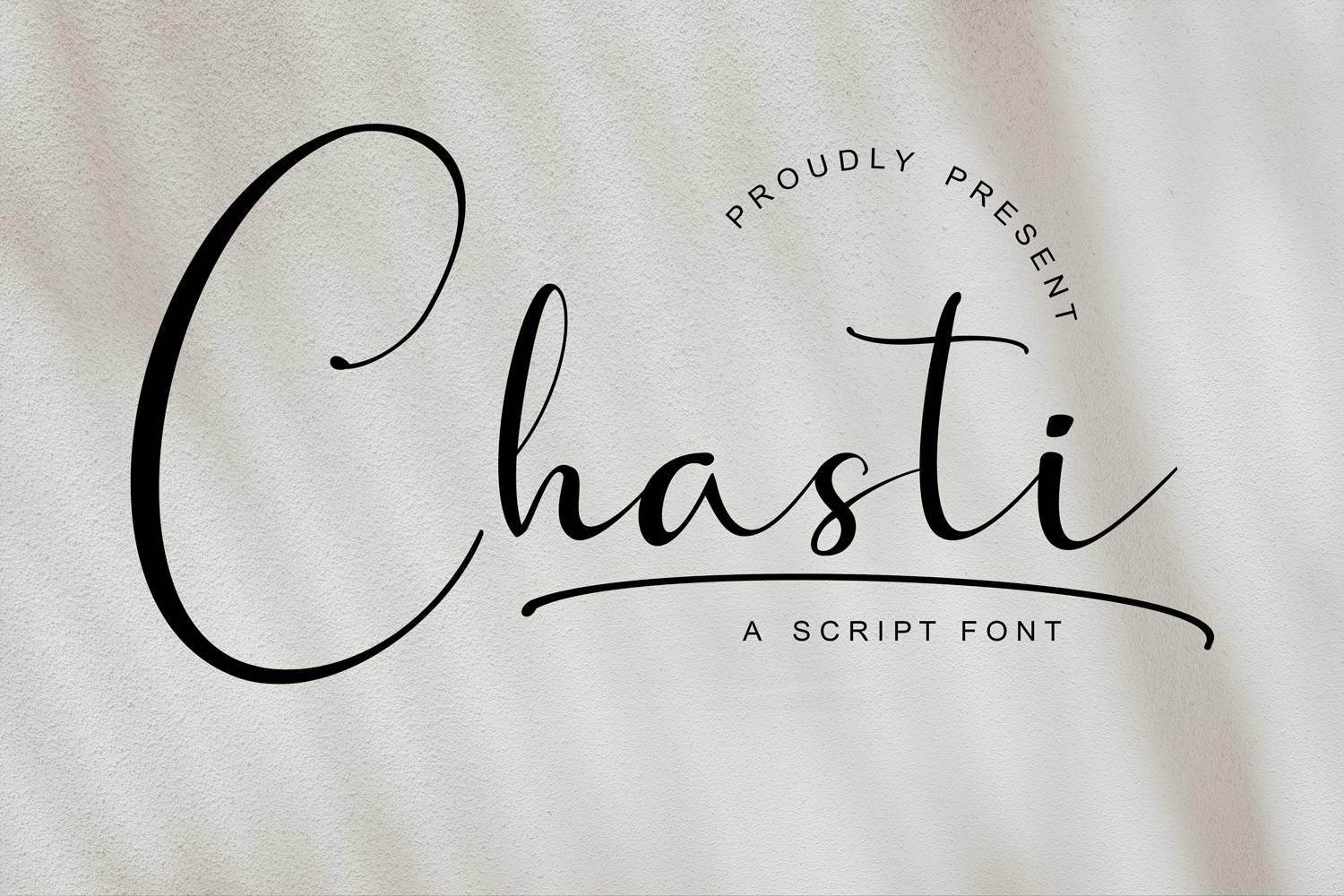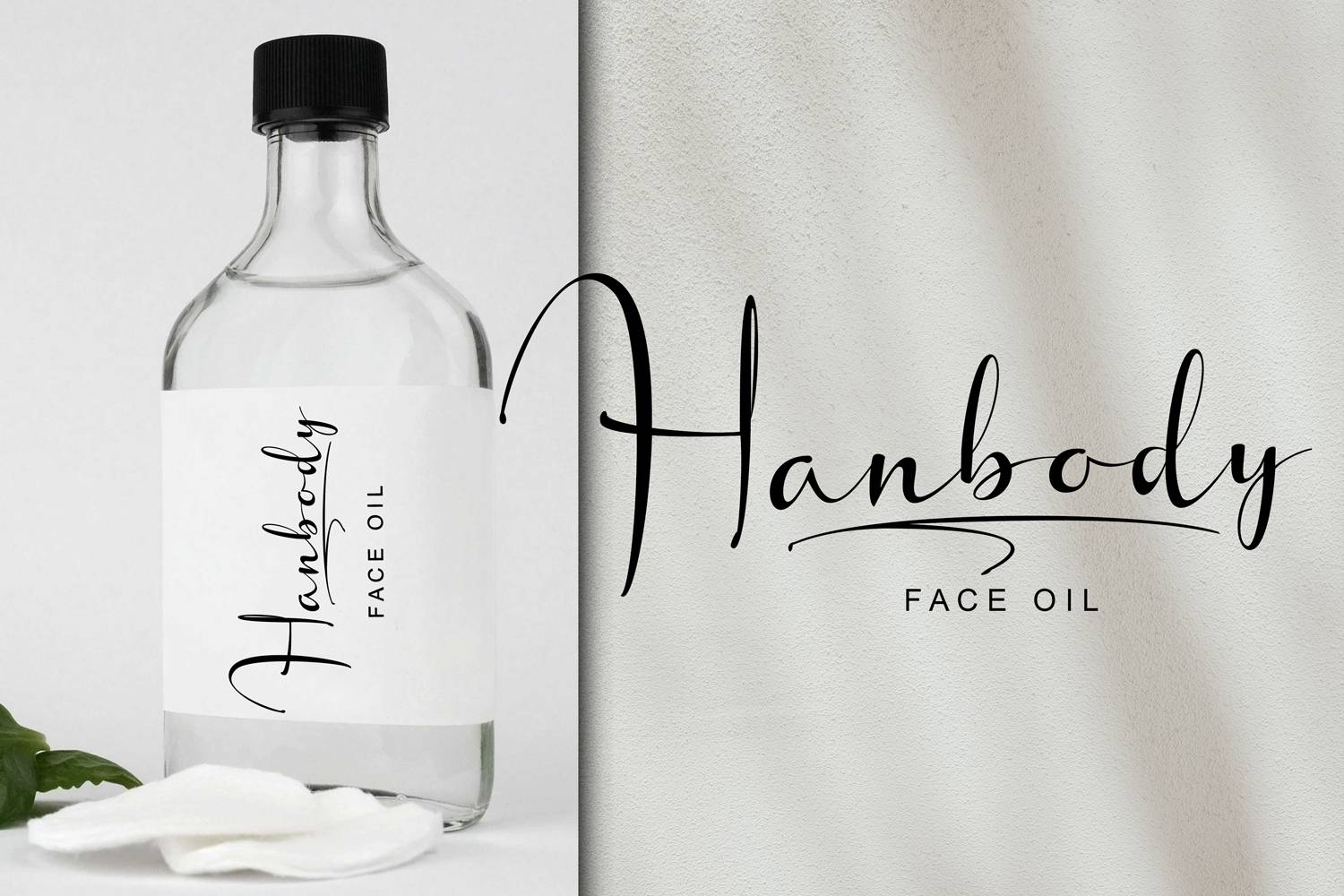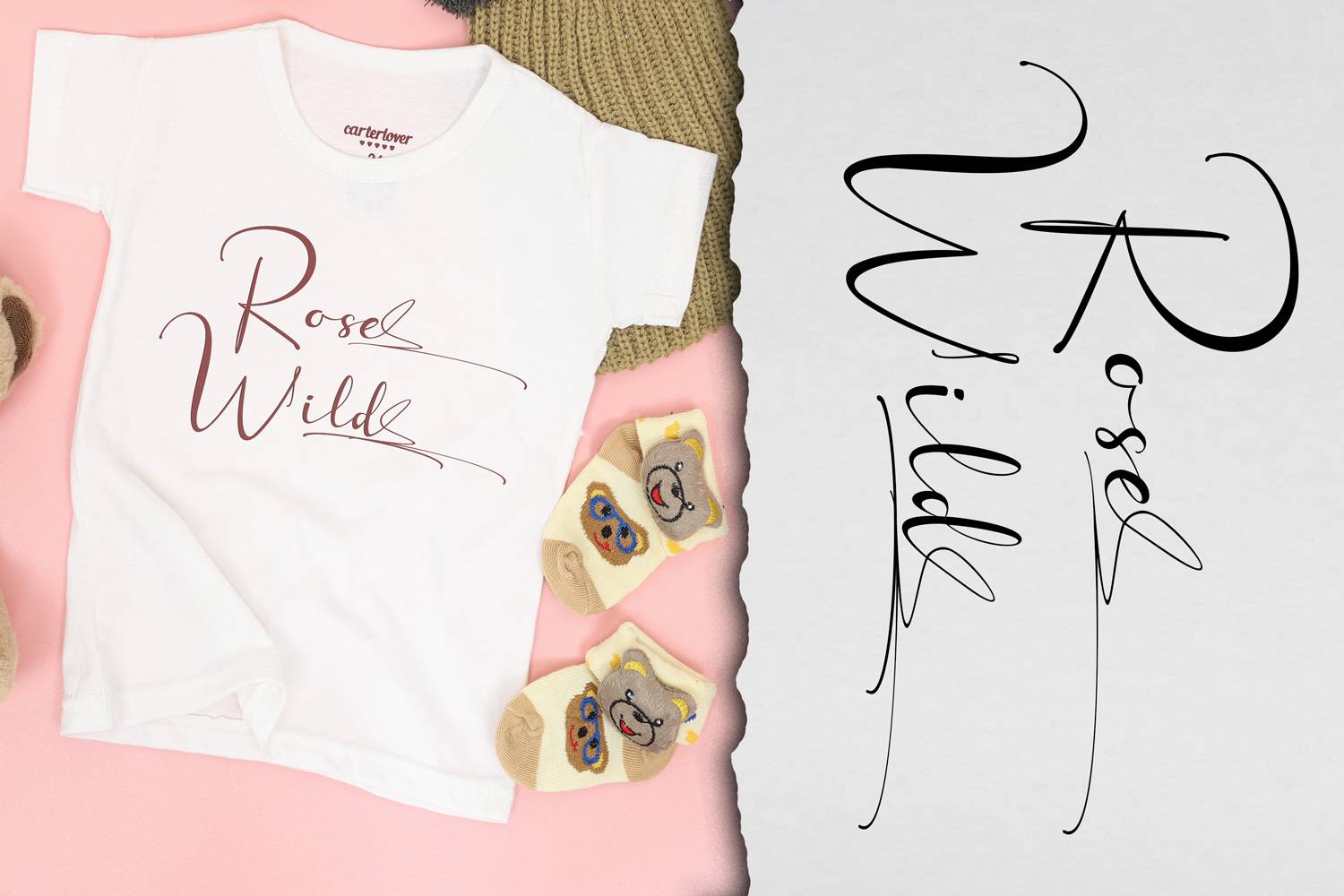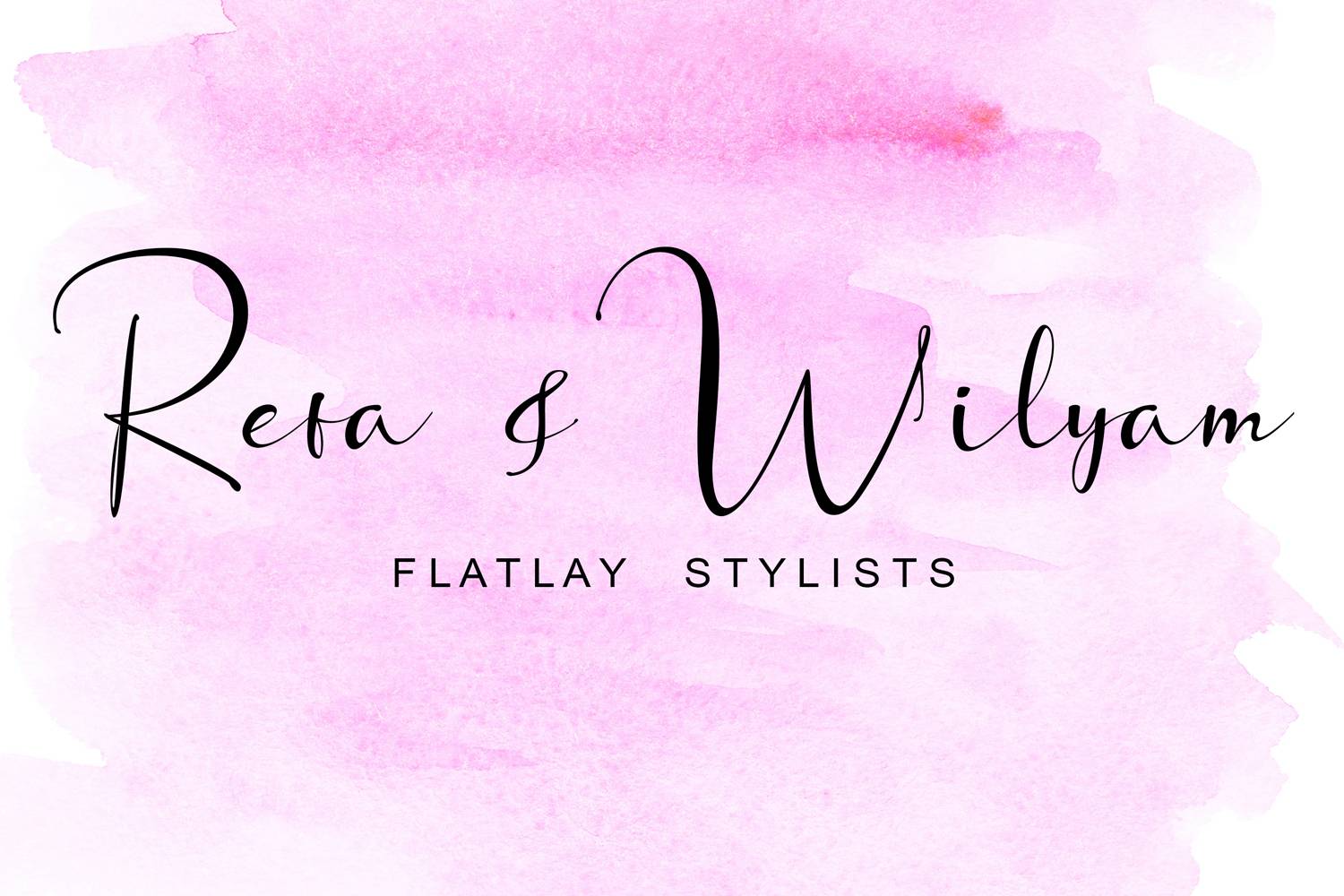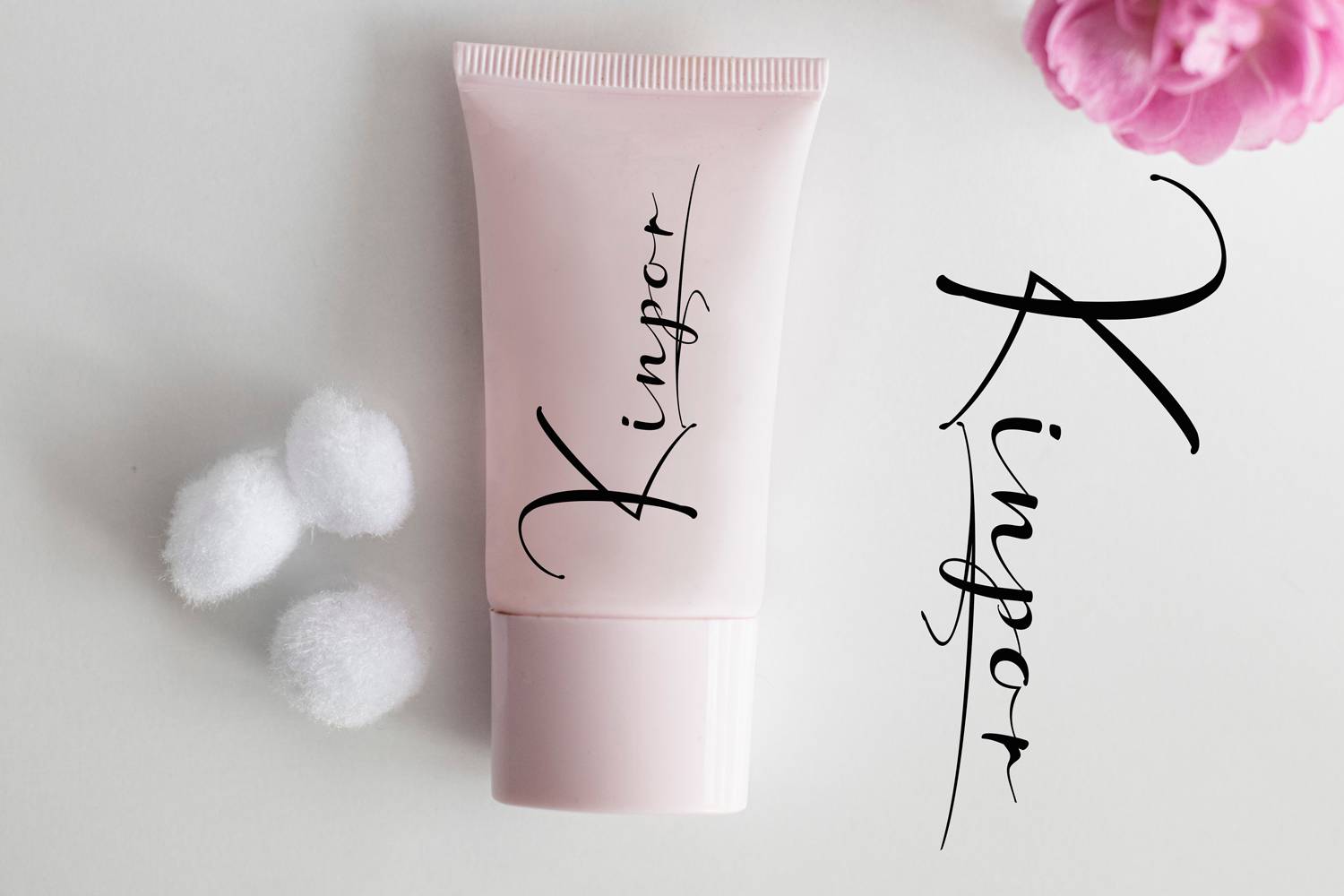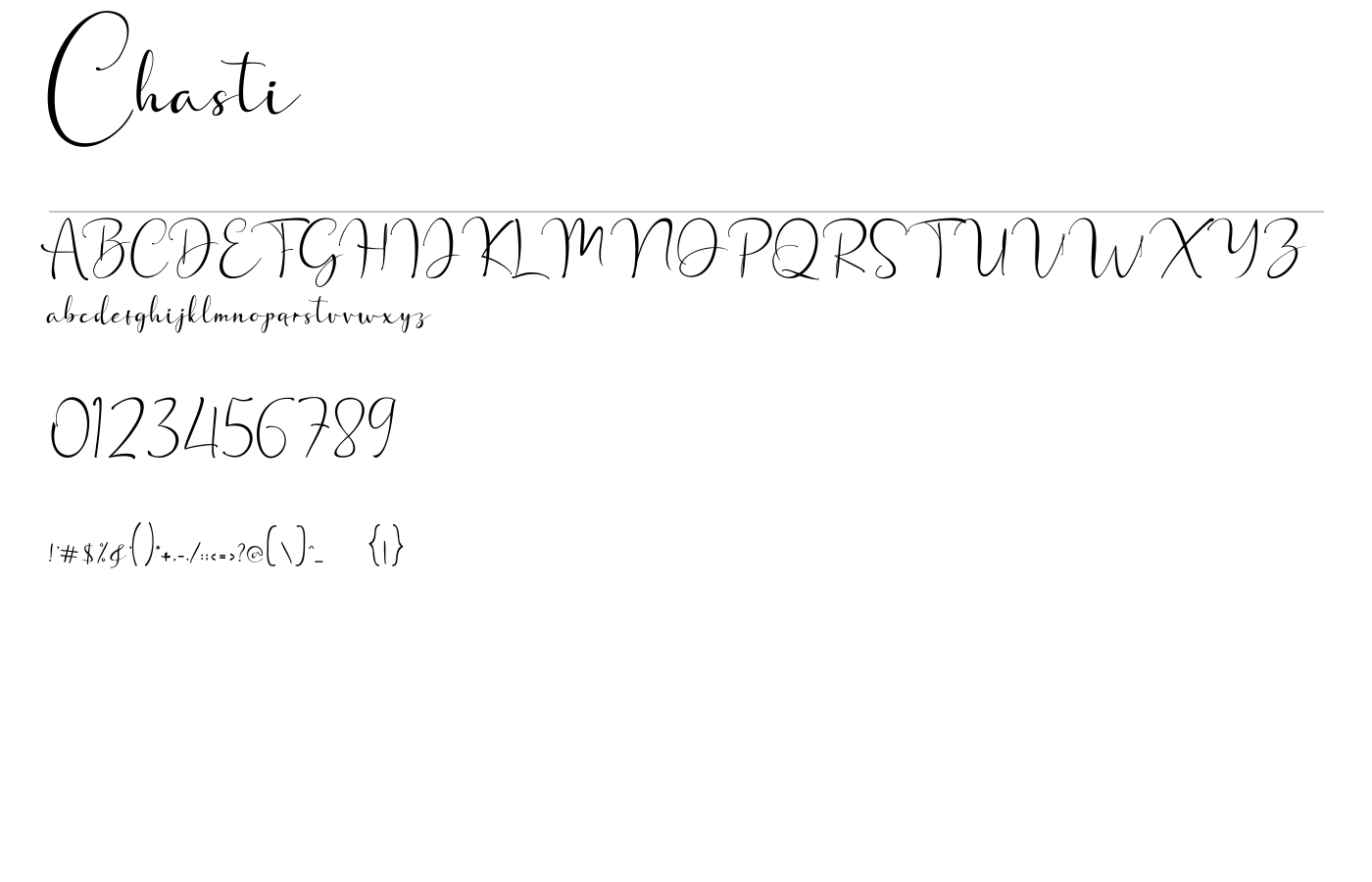
Chasti is a delicate script font characterized by its elegant, flowing letterforms with thin, consistent strokes and subtle flourishes. Its slender, airy design creates a graceful and feminine personality, making it ideal for wedding invitations, beauty branding, and stylish editorial accents. This font works beautifully in display uses where a refined, handwritten touch is desired.
Chasti Font
About Chasti Font
| Font family | Chasti Font |
| Designer | Reza mukhtazar |